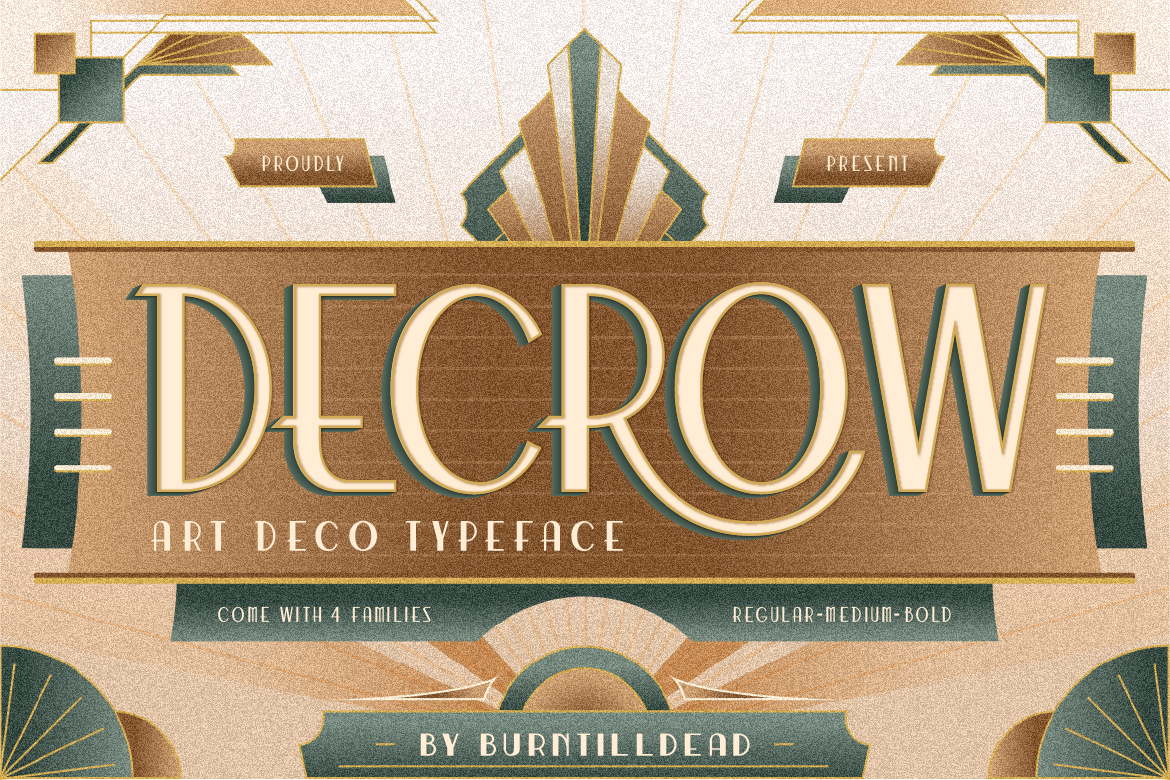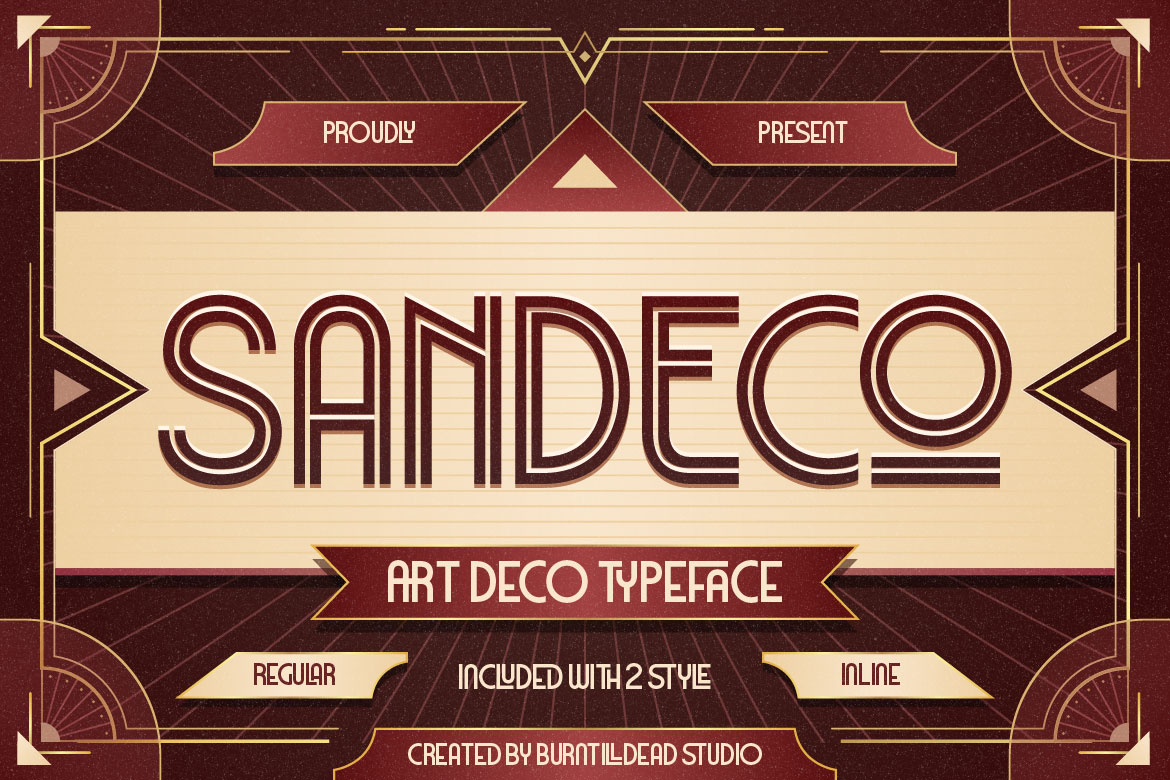
Art Deco is basically “glamour” in letter form. Born in the 1920s–1930s, this style was everywhere from classic movie posters to luxury hotel signs. If you love that vintage-meets-classy vibe with a hint of modern elegance, Art Deco typefaces are a must-have in your design toolkit.
Art Deco first took the spotlight in Paris during the early 1920s before making its way across the globe. This was a time of innovation technology was advancing, architecture was reaching new heights, and typography was breaking away from traditional forms.
With bold geometric shapes, striking thick–thin contrasts, and a luxurious yet minimal look, Art Deco typefaces reflected the confidence and optimism of the era. Even today, they remain a favorite for designers aiming for a timeless, high-end aesthetic.
Here’s what makes Art Deco fonts instantly recognizable:
Looking for the perfect Art Deco typeface for your poster, sign board, or branding project? Check out these top 3 art deco font:
Ventro, an Art Deco-style font that mixes the luxury of the 1920s with a modern feel. It comes in two styles: Regular and Inline, making it perfect for designs that want to look classic but still bold. With its strong look, Ventro works great for movie titles, vintage café logos, event posters, fancy product labels, and even retro sci-fi themes.
SanDeco, an elegant Art Deco-inspired font, full of character and perfect for design projects that aim to highlight a classic vintage feel with a modern twist.
Available in two styles: Regular and Inline, SanDeco brings a luxurious, retro, and exclusive vibe—making it ideal for designs that want to feel timeless yet contemporary. The Inline style adds a dynamic touch reminiscent of vintage billboards from the Art Deco era.
Perfect for logos, restaurants, hotels, luxury brands, movie posters, wedding invitations, editorial layouts, and more.
The timeless charm of Artdeco font, Decrow. This font inspired of the 1920s and 1930s era with characterized of clean lines, symmetrical patterns and precision. The boldness and glamour reflecting the era’s captivating with modernity and progress. Fitting seamlessly into both vintage and contemporary. Decrow have 3 style, bold, regular and medium. So this style embrace the elegance of simplicity, glamour and geometry of Art Deco. Decrow ideal for headlines, logos used in fashion, jewelry, or web projects.
Art Deco typefaces are more than just vintage, they’re a statement. Whether you’re working on a modern campaign or a retro-inspired project, these fonts can give your design a unique and timeless character. So, if you’re ready to bring vintage glamour to life, it’s time to let Art Deco take center stage.